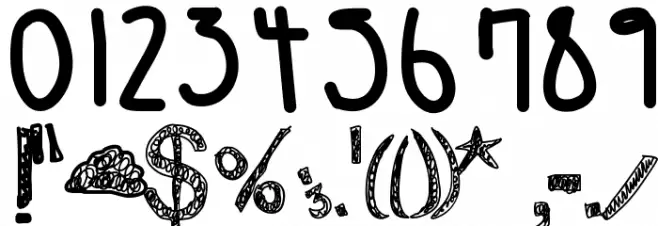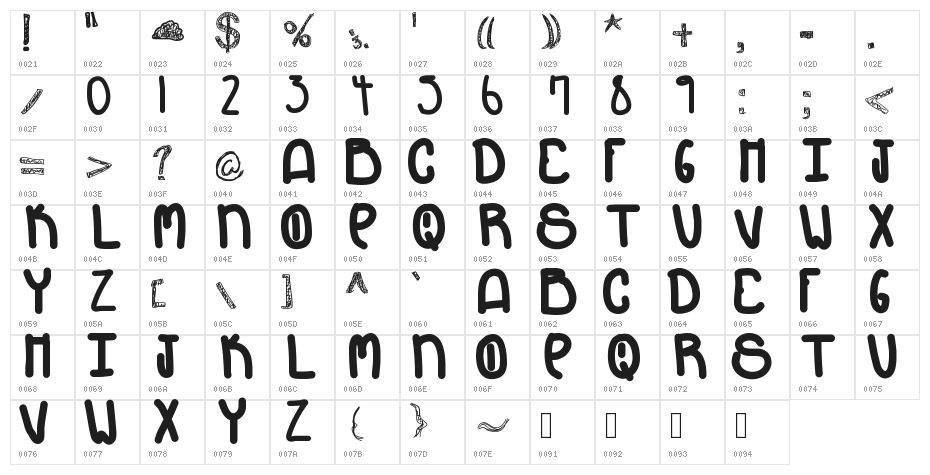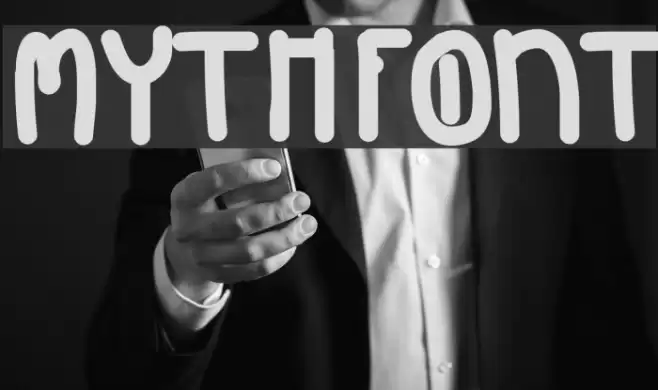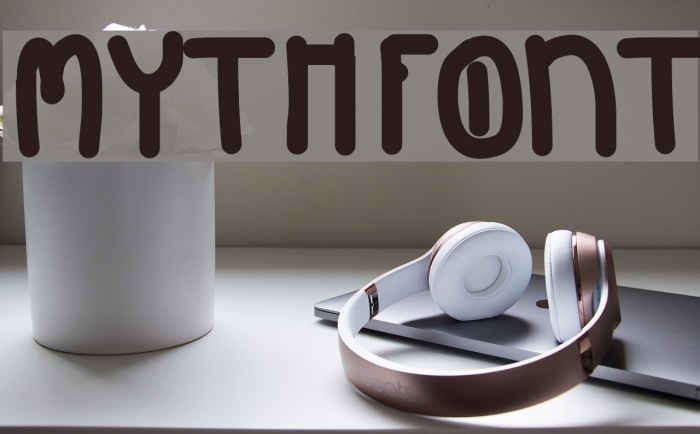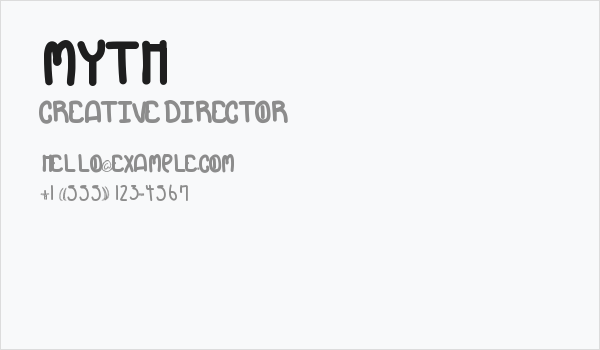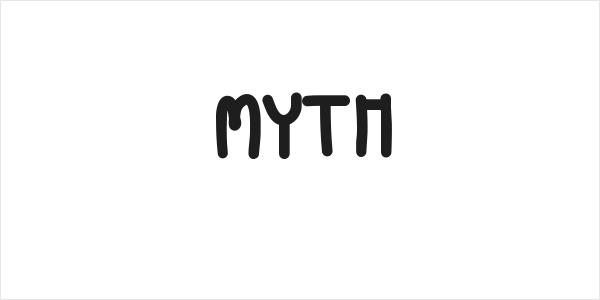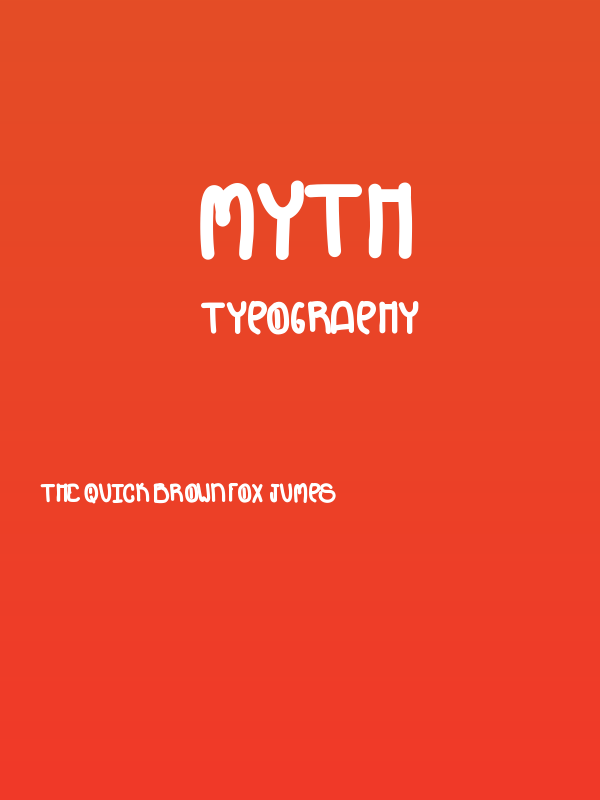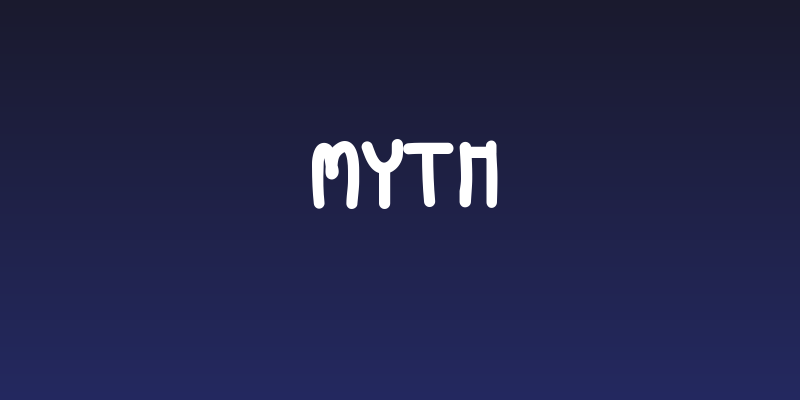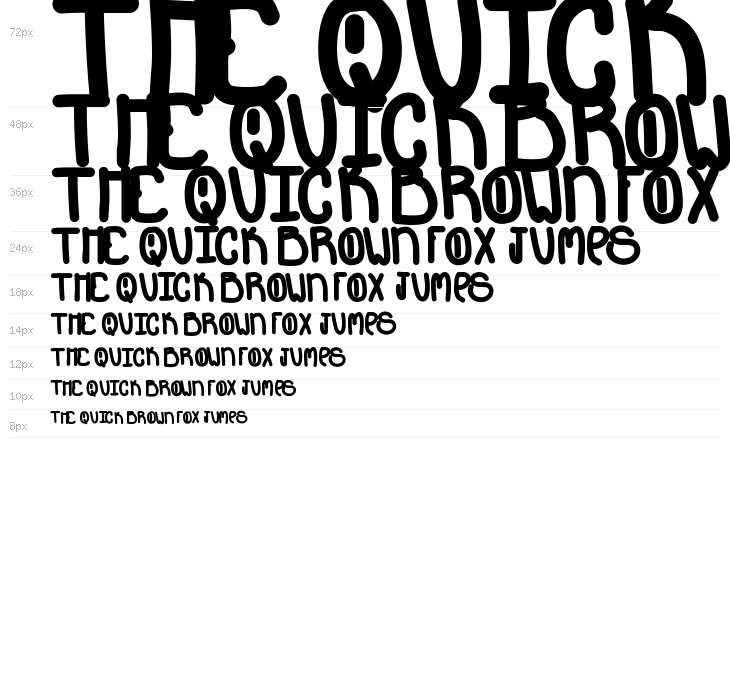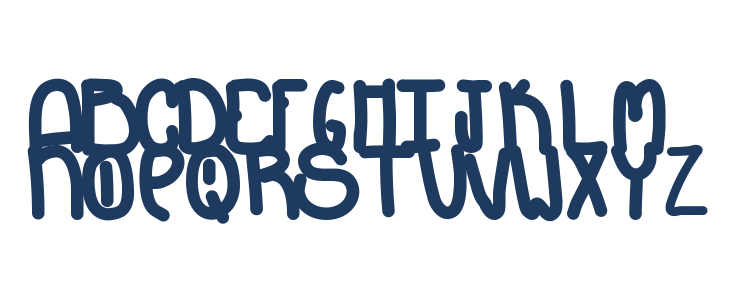
Myth Font
Myth Description
This playful and bold font features a handwritten style with a quirky, artistic flair. The characters are thick and rounded, giving a friendly and approachable feel. The uppercase and lowercase letters maintain a consistent style, with a slight variation in height and width that adds to the casual aesthetic. Numbers and special characters are equally expressive, with unique designs that enhance the font's creative personality. The overall appearance is dynamic and lively, making it suitable for projects that require a fun and informal touch.